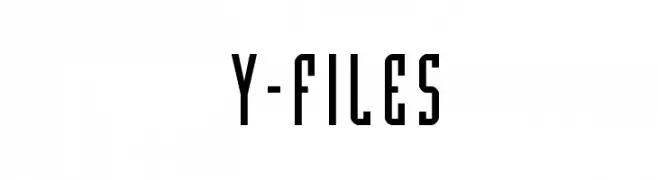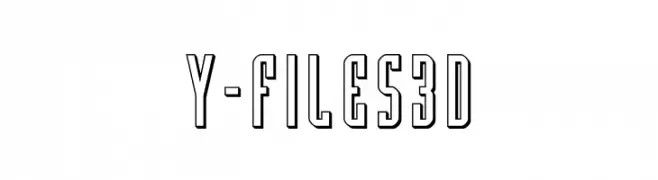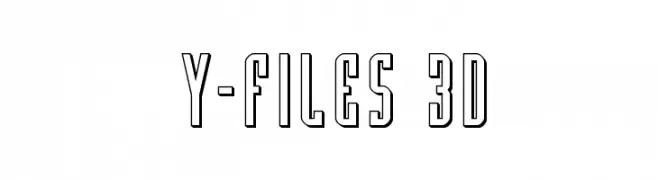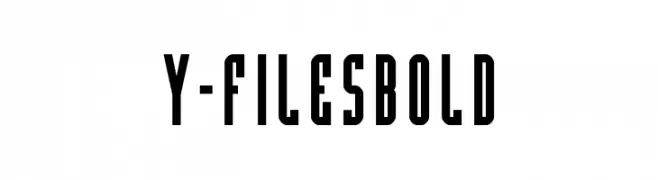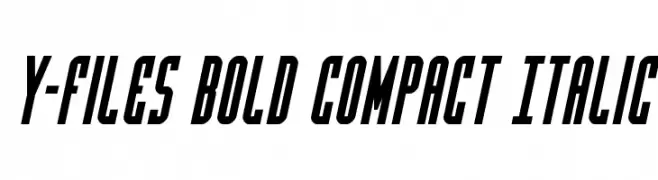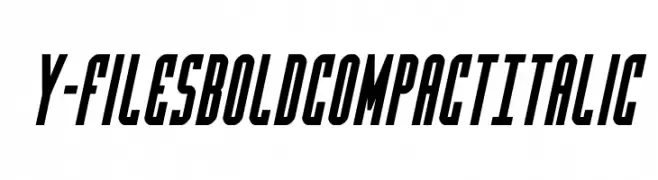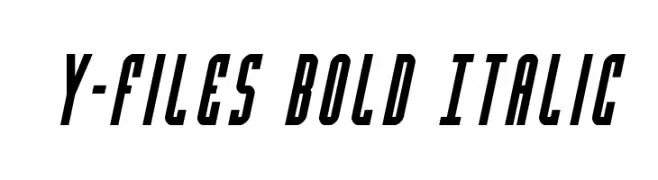
( Fonts by Andrew McCluskey - nalgames.com )
A tall, narrow, and modern geometric font with consistent stroke width.
A bold, geometric font with a 3D outline effect, perfect for modern designs.
A bold, 3D geometric font with a modern, futuristic style.
A bold, italicized 3D font with sharp, angular lines and a modern, dynamic appearance.
A bold, italicized font with a 3D effect and outlined characters.
A bold, modern font with tall, narrow letterforms and tight spacing.
A bold, condensed font with tall, narrow characters for a strong visual impact.
A bold, compact font with tall, narrow characters and uniform strokes.
A bold, compact font with tall, narrow letterforms and strong vertical emphasis.
A bold, compact, and italic font with a modern and dynamic style.
A bold, compact, and italicized font with tight spacing and uniform stroke weight.
Bold, italicized font with strong, slanted letterforms for a dynamic look.
Bold, italicized font with a modern, dynamic style.
A bold, three-dimensional font with horizontal stripes and a vintage-modern aesthetic.
A bold, decorative font with a unique striped pattern, perfect for eye-catching displays.
A bold, italicized font with a 3D chrome effect and horizontal lines.
A bold, italicized 3D font with a chrome-like, retro-futuristic style.
A tall, narrow, and modern geometric font with consistent character widths.
A tall, narrow, and modern sans-serif font with a sleek appearance.
A modern, italicized font with a sleek and compact design.
A modern, italic font with a compact and bold design.
A tall, narrow, and condensed font with a modern and sleek design.
A modern, condensed font with tall, narrow letters and a sleek appearance.
A condensed, italicized font with a modern and dynamic style.
A modern, condensed italic font with a sleek and dynamic style.
A bold, decorative font with an engraved, three-dimensional effect.
A bold, decorative font with an engraved, three-dimensional appearance.
A bold, engraved italic font with a three-dimensional effect and modern style.
A bold, engraved italic font with a dynamic and three-dimensional style.